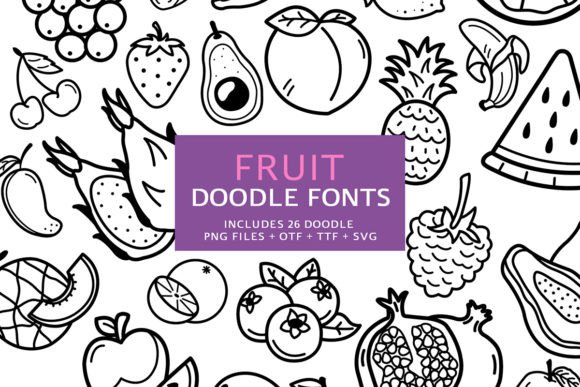
Journey into the world of Fruit Doodle Font, a playful dingbat font that ignites your creativity and brings a dash of whimsy to your designs. Dive into a realm of enchanting illustrations and captivating motifs, where every character dances with joy and personality. Unleash your imagination and let Fruit Doodle Font transform your projects into a visual feast.
With Fruit Doodle Font, the possibilities are endless. Create cheerful invitations that burst with summer vibes, design playful greeting cards that spread smiles, or add a touch of whimsy to your social media posts. Its boundless versatility extends to crafting eye-catching logos, vibrant website headers, and packaging that pops off the shelves.
Picture this: a vibrant invitation adorned with cheerful fruit illustrations, each letter a burst of color and charm. Or, envision a website header that dances with delectable typography, inviting visitors to explore a world of sweetness. With Fruit Doodle Font, your designs will blossom with life and leave a lasting impression.
So, embrace the playful spirit of Fruit Doodle Font and let your creativity run wild. Indulge in a font that captures the essence of joy, laughter, and unbridled imagination. Let Fruit Doodle Font be your artistic companion, guiding you towards designs that radiate happiness and leave an unforgettable mark.